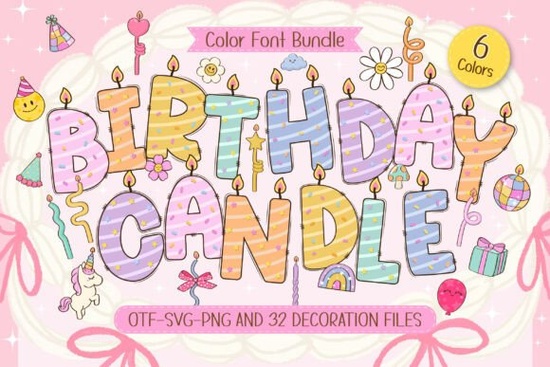
If you’ve ever tried to design a birthday invitation or party graphic and felt like something was missing maybe it lacked that spark of real celebration you might want to take a closer look at the Birthday Candle Font. This isn’t your average typeface. Each letter is crafted to look like a cheerful birthday candle, complete with colorful stripes, playful sprinkles, and even a tiny flickering flame on top. It’s part font, part illustration, and entirely designed to bring joy to your projects.
What makes this font especially useful is that it’s a color font, meaning it displays multiple colors and textures within each character without needing extra layers or effects in your design software. That saves time and keeps your workflow simple whether you’re creating printable party banners, digital greeting cards, or custom stickers for a child’s birthday favor bag.
Who is this font best for?
The Birthday Candle Font works beautifully for a range of creative folks:
- Parents and party planners who want to personalize invitations or decor without hiring a designer.
- Small business owners selling birthday-themed printables on Etsy or similar platforms.
- Print-on-demand creators designing mugs, T-shirts, or wall art with a festive twist.
- Graphic designers looking for a quick, eye-catching element for client projects.
- Digital crafters making planner inserts, scrapbook elements, or social media graphics.
Because it’s so visually rich on its own, you don’t need to over-design around it. A simple layout with solid background colors or minimal confetti accents often lets the font shine.
How does it compare to other festive fonts?
Many decorative fonts lean heavily on outlines or require manual coloring. The Birthday Candle Font stands out because it’s ready to use as-is no extra steps. If you’ve used other playful color fonts like the New Year’s Bracelet Font, you’ll appreciate how similarly intuitive this one is, but with a distinctly birthday-focused charm.
Unlike generic script or block fonts, this typeface tells a story just by appearing on the page. It instantly signals “celebration” without needing supporting graphics though pairing it with balloons, gift boxes, or streamers (all available in Creative Fabrica’s library) can create a cohesive theme.
What kinds of projects work best with it?
Thanks to its whimsical yet clear design, the Birthday Candle Font is surprisingly versatile. Here are a few ideas that consistently work well:
- Birthday invitations – digital or printed, for kids or adults who love a playful vibe.
- Social media posts – perfect for birthday announcements, countdowns, or event reminders.
- Greeting cards and gift tags – adds instant personality without hand-lettering skills.
- Children’s book titles or activity sheets – engaging for young readers and educators.
- Party signage – from “Happy Birthday” banners to cupcake toppers and photo booth props.
One thing to keep in mind: because each character includes fine details like flames and sprinkles, it’s best used at larger sizes. Avoid using it for body text or anything smaller than 24pt, where those charming details might get lost.
Tips for getting the most out of this font
To make your designs pop while keeping them professional:
- Use bold, solid backgrounds. Pastels or bright solids (like sky blue, hot pink, or sunshine yellow) let the candles stand out.
- Limit additional graphics. One or two complementary elements like a balloon cluster or a ribbon are enough.
- Pair with a clean sans-serif. For any supporting text (like date, time, or RSVP info), choose a simple, neutral font to balance the playfulness.
- Check your software compatibility. Most modern design tools (Canva, Adobe apps, Affinity, etc.) support color fonts, but always test before finalizing a project.
Before you start your next birthday project, ask yourself: Do I want my design to feel handmade, happy, and full of celebration? If yes, the Birthday Candle Font could be exactly what ties it all together.